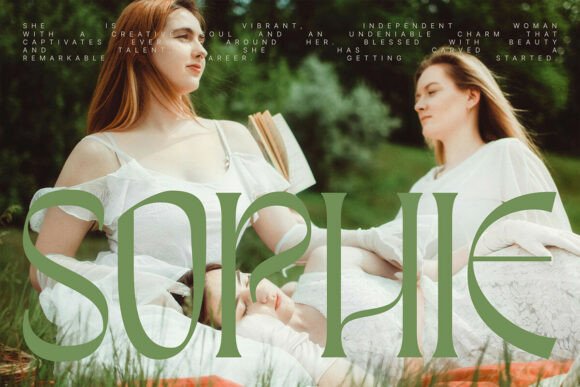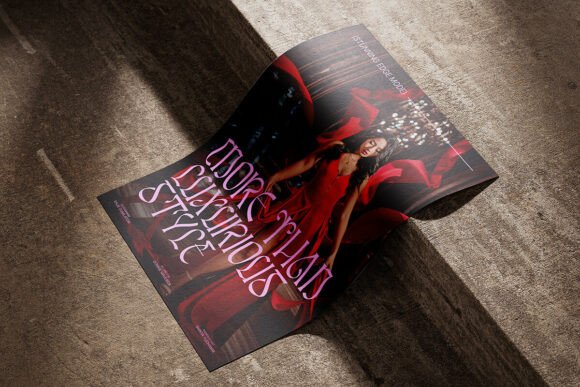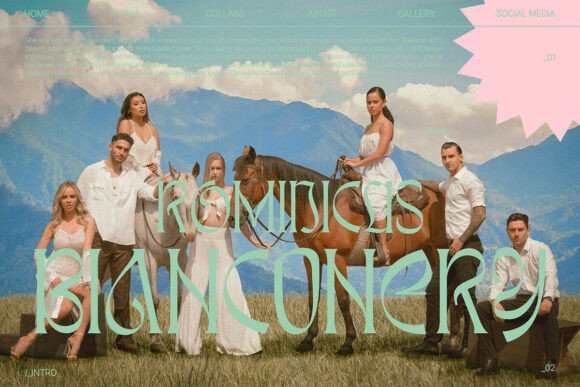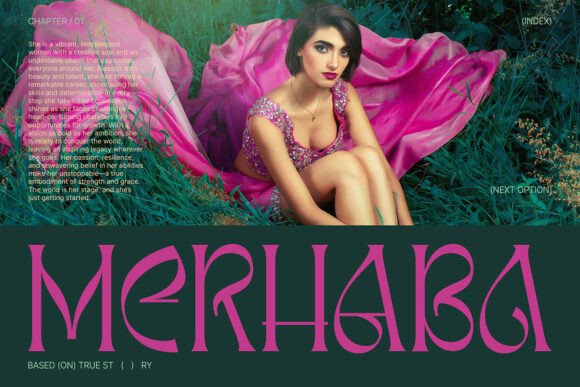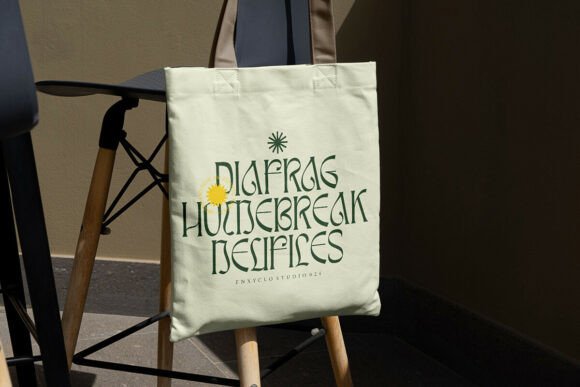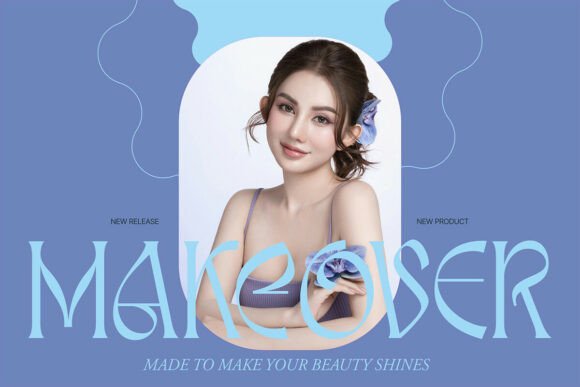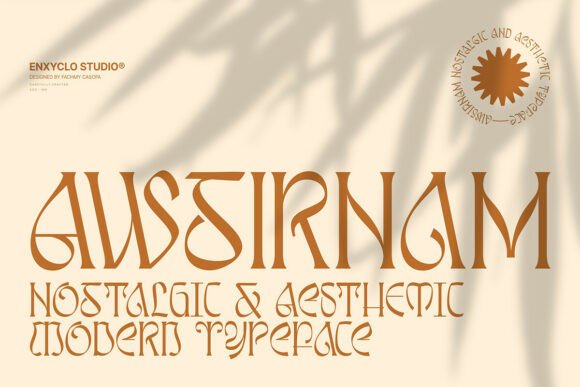
I still remember the frustration of working on a project, hours spent perfecting every detail, only to be stumped by one thing: finding the right font. My client wanted something bold, yet elegant; modern, yet nostalgic. I scoured the internet, tried countless fonts, but nothing seemed quite right. That was until I stumbled upon Awsirnam Font. It was like a breath of fresh air – the perfect blend of classic and contemporary. In this article, I’ll share my experience with Awsirnam Font, its features, and how to make the most of it in your designs.
Awsirnam Font: A Contemporary Classic
Awsirnam Font is a stunning all-caps serif display font that masterfully balances bold, flowing curves with sharp, angular accents. This unique blend creates a striking contrast between futuristic elements and subtle touches of nostalgia. The result is a font that embodies a classic and nostalgic feel while incorporating modern elements, making it perfect for a wide range of creative projects.
What I Love About Awsirnam Font
- ✨ Elegant curves and unique variations that add a touch of sophistication to any design
- ✅ Perfect for large point sizes, but still effective in smaller sizes
- ✅ Versatile and adaptable, suitable for various design projects, including headlines, digital ads, magazines, websites, posters, branding, and logos
- ✅ A beautiful addition to any font library, with the potential to elevate any creation
While Awsirnam Font is an exceptional font, there are a few minor quirks to be aware of:
- ⚠️ As an all-caps font, it may not be suitable for body text or longer paragraphs
- 🤔 Some users may find the font’s uniqueness takes getting used to, but this is part of its charm
The Story Behind Awsirnam Font
Awsirnam Font was designed with the goal of creating a unique, versatile typeface that blends classic and modern elements. The designer aimed to craft a font that would be perfect for creative projects, from headlines and titles to branding and logos. With its elegant curves and sharp accents, Awsirnam Font is sure to become a staple in any designer’s font library.
| What is Awsirnam Font best suited for? | Awsirnam Font is perfect for headlines, titles, branding, logos, and any creative project that requires a bold, yet elegant font. |
| Can I use Awsirnam Font for body text? | While Awsirnam Font is an exceptional font, it’s primarily designed for display purposes and may not be suitable for longer paragraphs or body text. |
| Is Awsirnam Font available in different styles? | Awsirnam Font comes with various styles and OpenType features, including ligatures, swashes, and stylistic alternates, allowing you to add a personal touch to your design. |